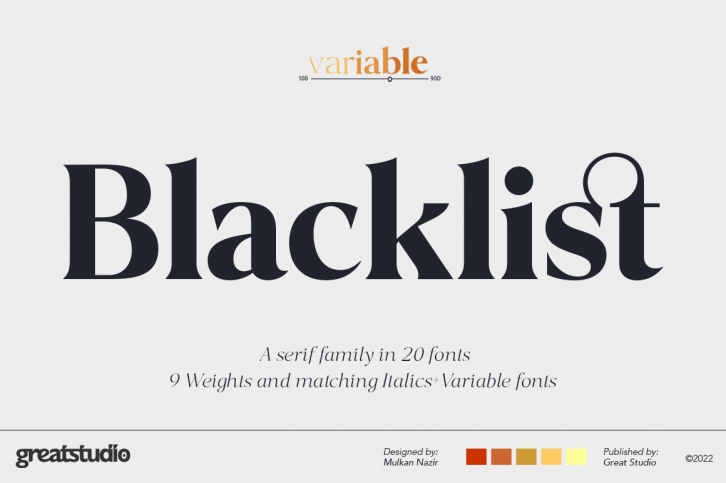
Blacklist is a high-contrast typography inspired by transitional and contemporary elements.
Blacklist excels in display settings such as headlines, titles, branding projects, Logo design, packaging, magazine headings, advertising, short or long text.